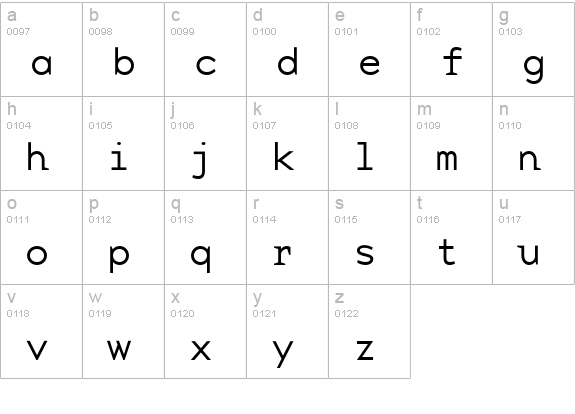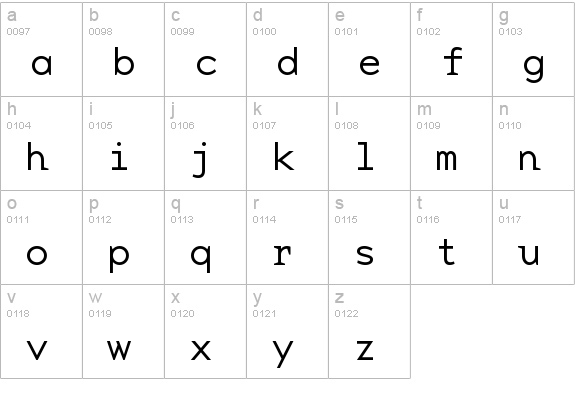
BaseMonoWide-Thin is a delicate, low-contrast variant in the BaseMonoWide typeface family \xE2\x80\x94 well suited to fashion editorial, minimal branding, and high-contrast display.
BaseMonoWide-Thin is a sleek and modern monospaced font that exudes elegance and sophistication. With its thin weight and wide proportions, this font is perfect for creating a clean and minimalist aesthetic in your designs. The uniform spacing of characters ensures excellent readability, making it ideal for both digital and print projects. What sets BaseMonoWide-Thin apart is not just its striking appearance, but also the fact that it is available for free download at FontsMarket.com. This means you can easily access this high-quality font without any cost, making it a valuable addition to your font library. Whether you're working on a branding project, website design, or any other creative endeavor, BaseMonoWide-Thin is a versatile font that will help elevate your work to the next level. Download it today and start using this stylish typeface in your projects!